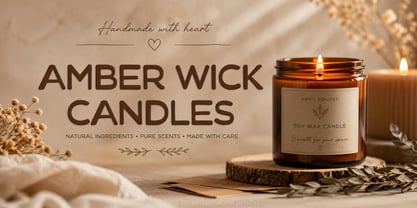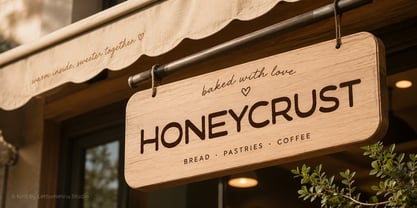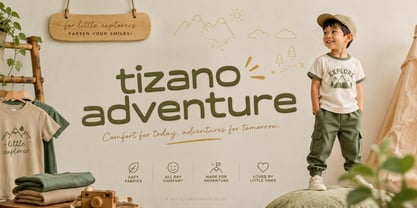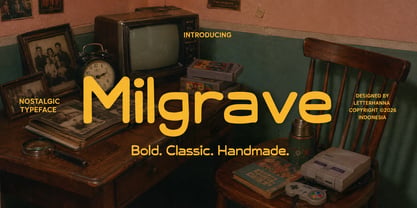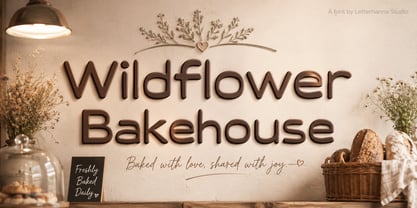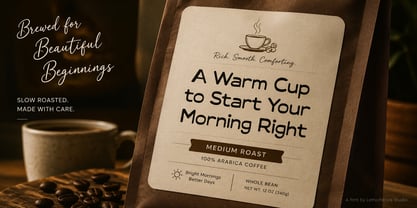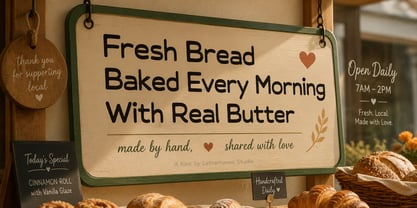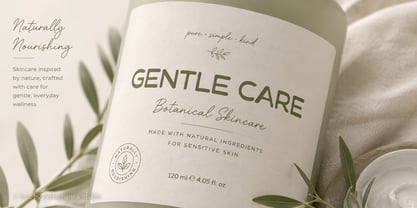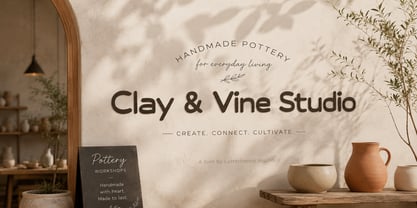
Milgrave
by Letterhanna Studio
The Milgrave Font Family was designed by Rinaldo Hasibuan and published by Letterhanna Studio. Milgrave contains 1 styles. More about this family
Milgrave is a geometric font designed not just to hold words, but to give them personality the moment they hit the page.
At its foundation, Milgrave follows the logic of a classic geometric font: rounded shapes, even stroke widths, letterforms that feel constructed rather than sketched. But spend a minute with the alphabet and you'll notice small, deliberate imperfections rooted in organic typography. The lowercase "a" and "g" use simple, single-story shapes, the way most people naturally write by hand, while the round dots on the "i" and "j" add a playful wink.
Picture where a font like this comes from — not a sterile grid, but a workshop where someone mastered proportion for years, then let a little looseness back in on purpose. That's the feeling Milgrave carries: trained geometry paired with the ease of casual lettering. There's also something distinctly handmade about it, recalling old-fashioned sign painting and worn packaging labels once brushed on by hand. It carries a soft, comforting nostalgia, even while staying crisp and current.
Milgrave fits naturally into projects that want to feel human first and polished second — children's brands, bakeries and cafés, boutique packaging, greeting cards, apparel graphics, and social content. Bold uppercase letters give it authority for headlines, while the rounded lowercase keeps things relaxed.
If your next project needs a typeface that greets people rather than lectures them, Milgrave is built for exactly that moment.
Designers: Rinaldo Hasibuan
Foundry: Letterhanna Studio